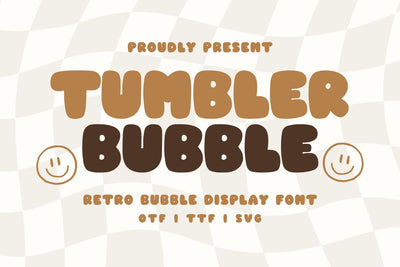
Tumbler Bubble - Retro Bubble Font
Tumbler Bubble is a fun and cute bubble font. This font is perfect for cricut projects, canva, shirts, stickers, logos, teachers, posters and more!